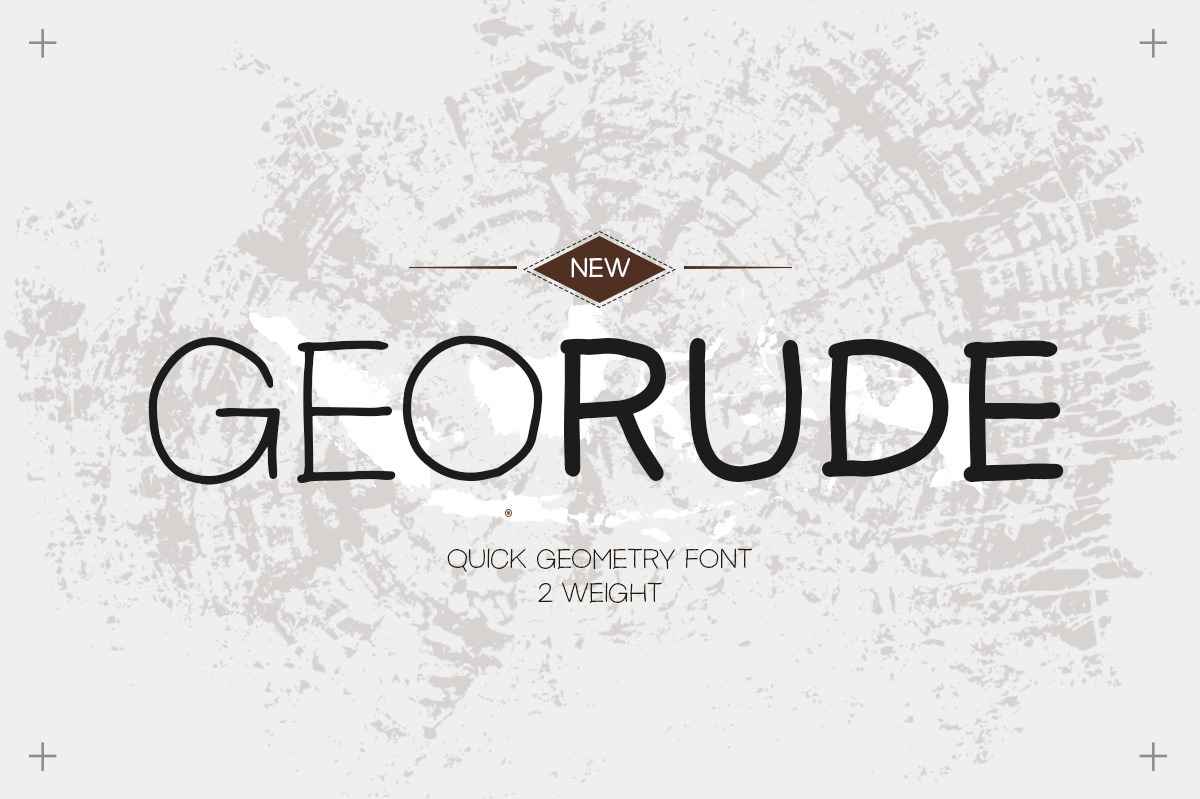
Introducing, Georude, a quick geometry font. This font is perfectly made for branding, packaging, headline, logos, magazines, books, greeting / wedding cards, packaging, fashion, make up, stationery, novels, labels or any type of advertising purpose.